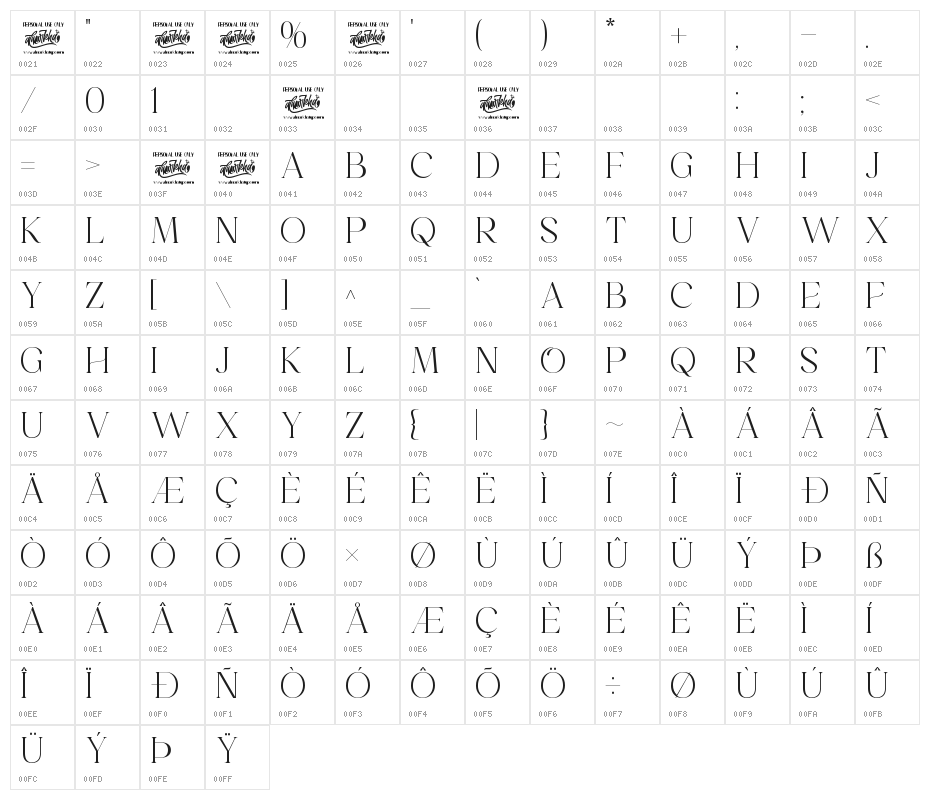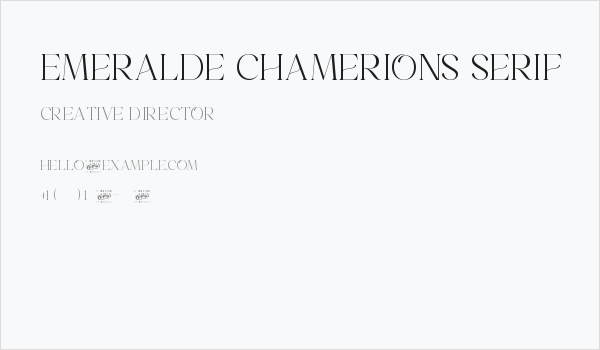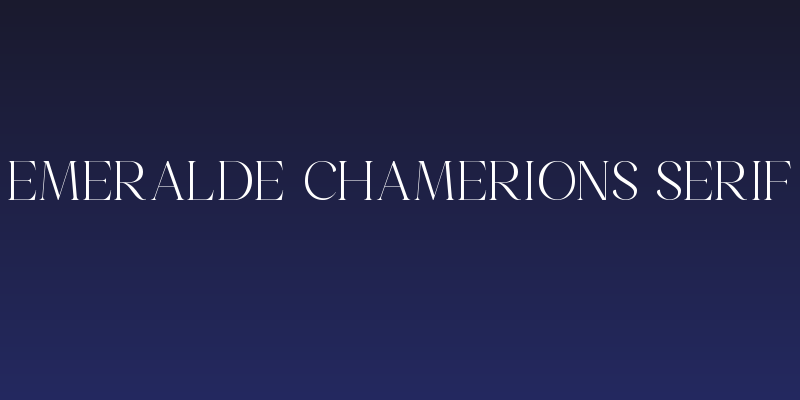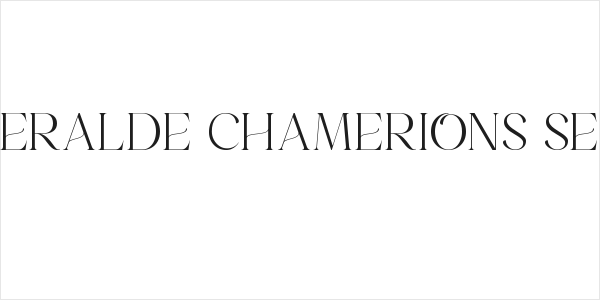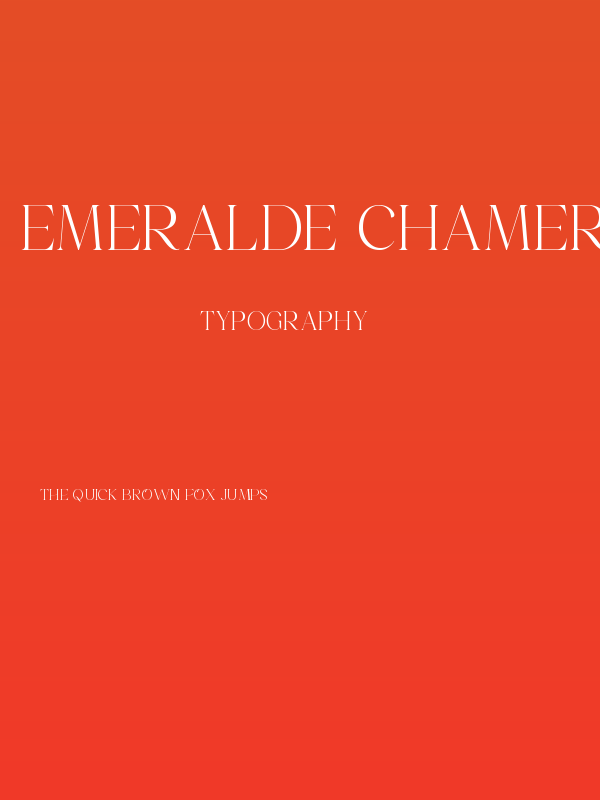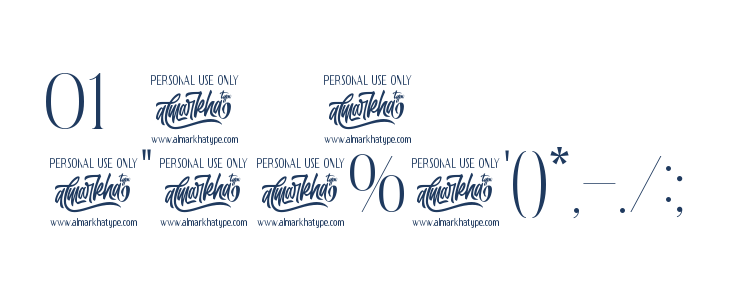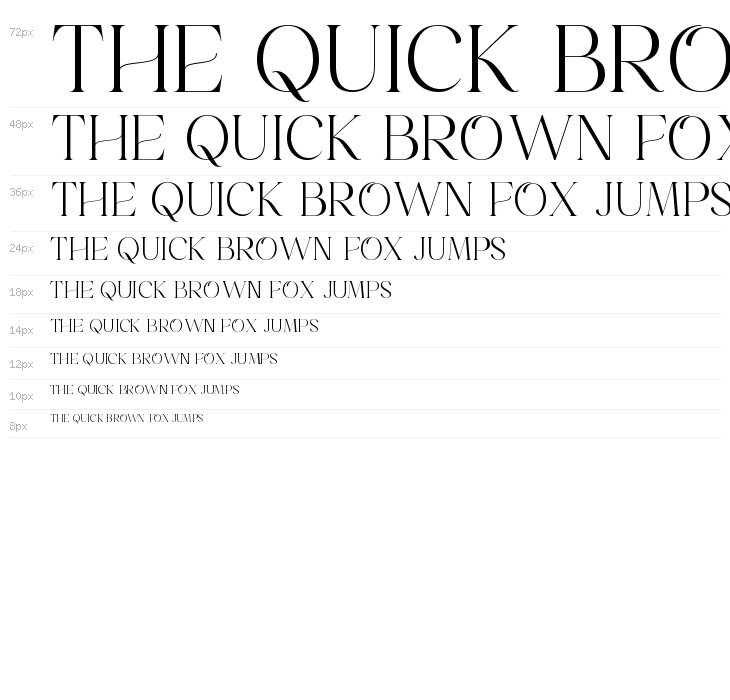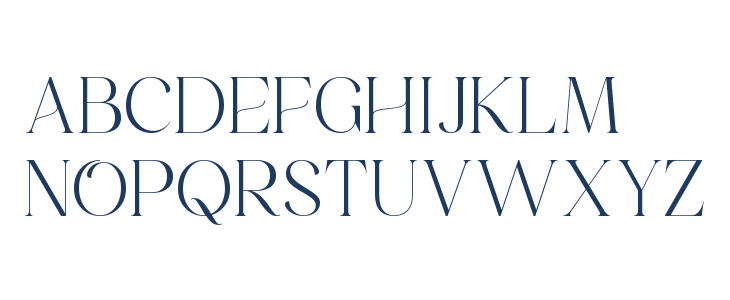
Emeralde Chamerions Serif Font
Emeralde Chamerions Serif Description
This font features a sophisticated serif style with elegant, elongated strokes and a refined presence. The uppercase letters exhibit a classic form with subtle variations in stroke width, providing a sense of movement and grace. The lowercase letters maintain a consistent style, complementing the uppercase with their balanced proportions. The numerals are clear and distinct, fitting seamlessly with the overall aesthetic. Special characters are designed with the same attention to detail, ensuring a cohesive look across all glyphs. This font's design is both timeless and versatile, making it suitable for a variety of applications.
| Use Case | Headlines, Logos, Editorial design |
| Proposed Projects | Ideal for luxury branding, editorial design, wedding invitations, and high-end product packaging. |